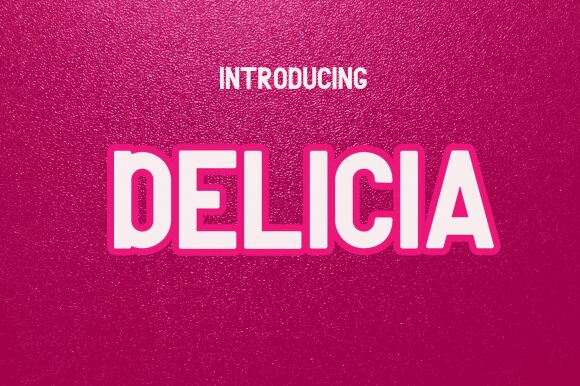
Delicia
Introducing Delicia, an elegant sans serif font designed by Anjas Cov Cava lera. Its bold and narrow width makes it great for headlines, logos, posters, magazine titles and more. Delicia is perfect for a wide range of projects that need to make a bold statement!